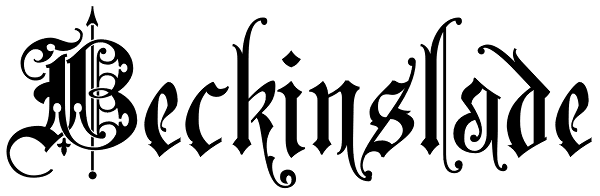
Beckinslade
Beckinslade is a lovely elaborate blackletter face, released just in time for Christmas, but useable at any time of the year. It is in the best traditions of Victorian Gothic revival, drawing inspiration from a range of sources and marrying them...